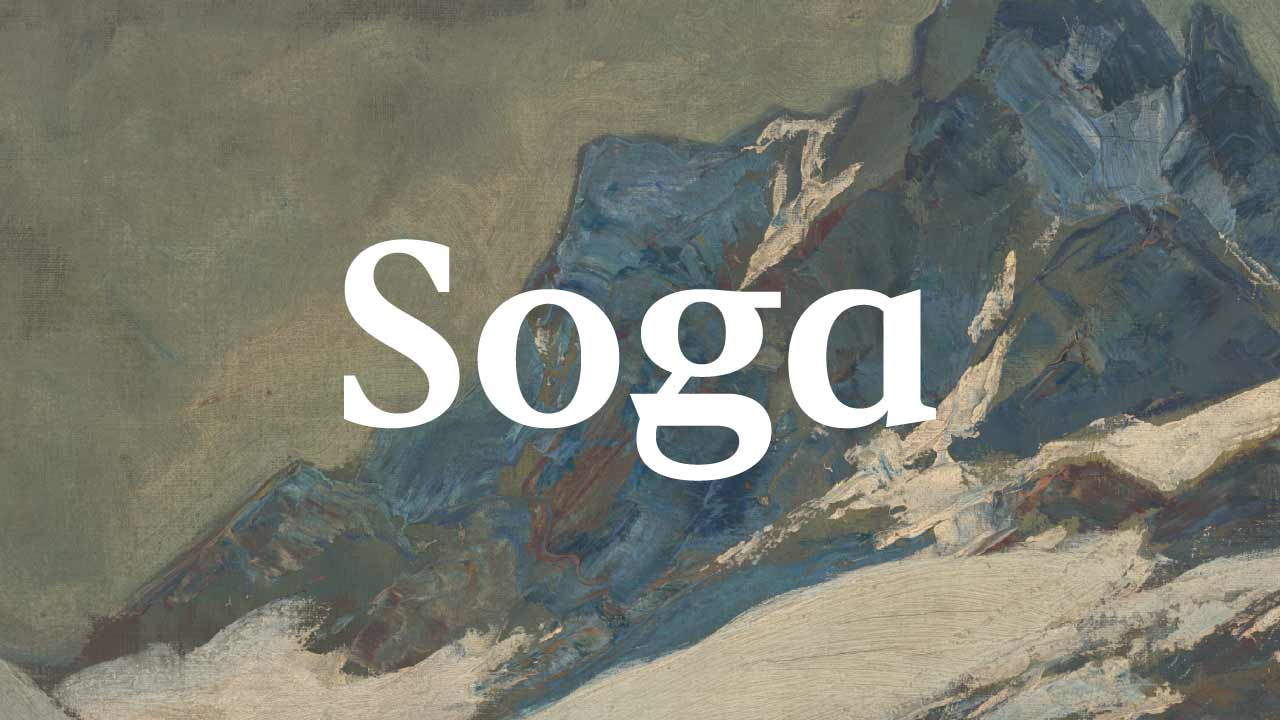
Soga
Logo for Soga, a Slovak art auction company and the leader on the fine art market in Slovakia.
After the change of owners and address and in need of a mental and visual reboot, Soga decided to refresh its visual identity, including updating the logo. The task of the new visual identity is to present Soga as stable, traditional and conservative, the brand should warrant quality, it should not attract too much attention.